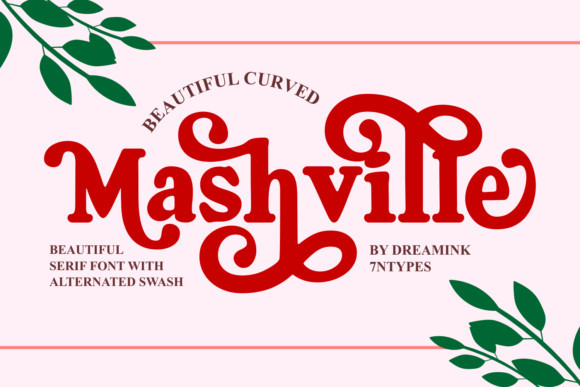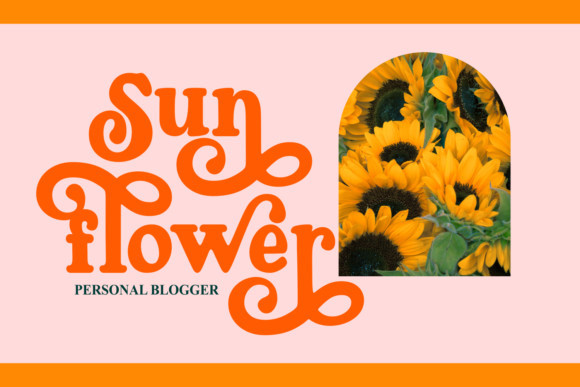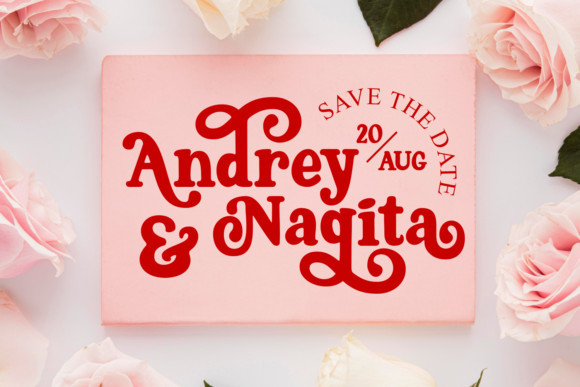
Mashville Font
Mashville FontMashville is a casual serif font. Simple and easy to use, this font will be very beautiful if you mix it with your various craft designs.